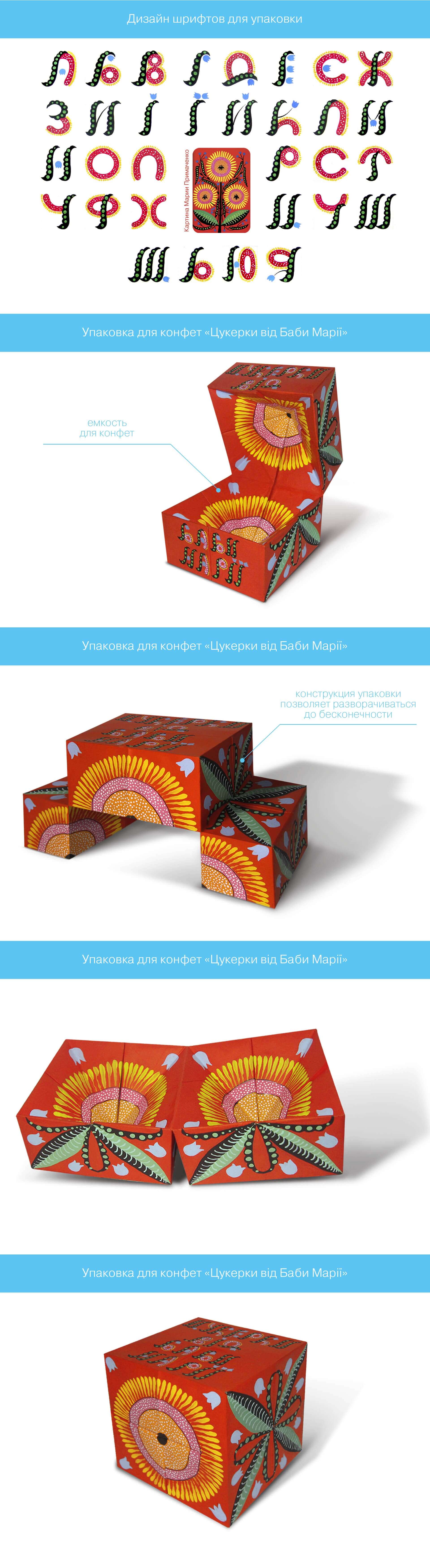
Design of fonts and packaging for sweets
The task:
Develop font, design and packaging design.The main desire in the development of the packaging was the request to preserve the style and recognizability of one of the paintings of Maria Primatchenko.Solution for the font:
The main elements in the font are sunrise, cave and bell.Solution for packaging:
The packaging design is made in the long Ukrainian traditions and carries sweetness and excellent mood for children and even adults.The thematic design is associated with the decorative and applied art of our ancestors, thanks to which it attracts the new generation to study the creativity of Ukrainian artists.Visually creates the illusion of the volume of the picture.The packaging-headset is designed with drawings in the form of ornaments from all sides.When opening up from above and down, a flower is formed, on the sides - leaflets.Such a packaging can serve not only a container for sweets, but also a box, a fun toy for children or an element of decor in the interior.The packaging design is designed to allow it to rotating endlessly.